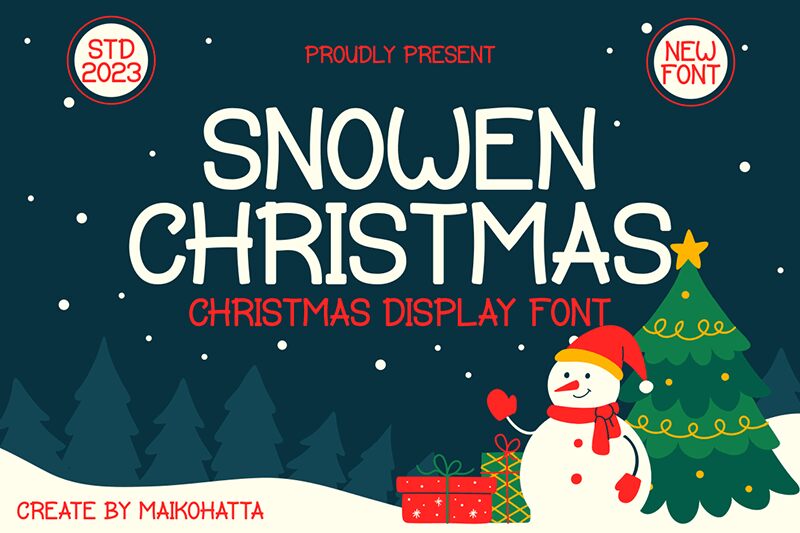
SNOWEN CHRISTMAS
Snowen christmas font by Gilang Ternadho is a free Christmas holiday typeface with a bouncy, hand-drawn feel. The tall, slightly wobbly letters look like they’ve been written with a thick marker on glossy gift wrap-rounded corners, playful curves, and a loose rhythm that feels warm and homemade. It reads clearly even at smaller sizes, while the quirky shapes keep it fun and full of cheer.
Using Snowen christmas, this free font shines on greeting cards, gift tags, kids’ party invites, festive posters, social media graphics, and cozy seasonal branding. The friendly, informal style makes headlines feel welcoming, not stiff or formal. Pair it with a simple geometric sans for body text and let Snowen christmas handle the big, joyous words at the top of your layout.